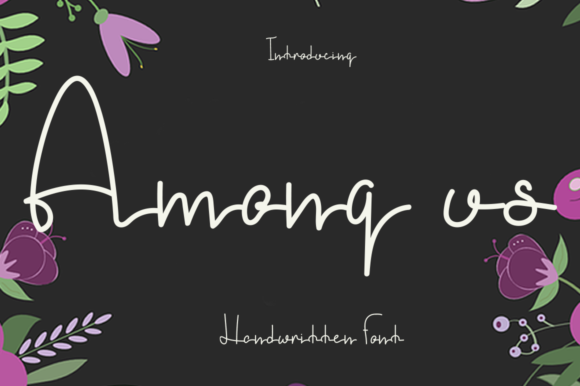
Among Us Font Download: If you’ve spent any time in the world of casual gaming or digital pop culture, you’ve probably come across Among Us—the viral multiplayer game that turned colorful crewmates and sneaky imposters into a global phenomenon. But what many designers and creators also noticed? That quirky, thin, handwritten Among Us font that became instantly recognizable across memes, merchandise, fan art, and game content.
In this guide, we’ll dive into everything you need to know about the Among Us-inspired font—from where to download it, how to use it, what makes it so unique, and how it can elevate your design projects with a playful touch.
What Is the Among Us Font?
The font commonly associated with Among Us is a handwritten, thin, rounded script that gives off a lighthearted and fun vibe. It’s not the official game’s title font (which resembles a cartoonish bold typeface), but a popular fan-inspired handwritten font often referred to as “Among Uss” or simply “Among Us font” across download platforms.
Key Characteristics:
Thin strokes and round edges
Slight slant, like natural handwriting
Soft and friendly appearance
Casual and informal tone
Because of its simplicity and approachability, the Among Us font is often used in designs aimed at kids, gamers, content creators, and fun-loving brands.
Why Designers Love the Among Us Font
Fonts carry personality—and Among Us font brings in a ton of charm without being loud. Here’s why it’s a favorite among creators:
✨ 1. Approachable & Friendly
It has a handwritten feel that instantly feels more personal. Whether you’re designing a thank-you card, a children’s book title, or a YouTube thumbnail, this font gives the impression that a real person is behind the words.
🎨 2. Incredibly Versatile
Despite its game-inspired roots, Among Us font isn’t just for gaming content. It’s great for:
Greeting cards
Kid’s party invitations
Fan art and posters
Social media captions
School projects
T-shirt and sticker designs
🎮 3. Nostalgia for Among Us Fans
Even if your audience isn’t hardcore gamers, chances are they recognize the Among Us aesthetic. This font can serve as a fun visual callback—without needing to show any game graphics at all.
Best Use Cases for Among Us Font
While the Among Us font started as a game-inspired typeface, it’s far more versatile than many expect. Here are some common and creative ways designers are using it:
🔸 1. Fan Art & Game Posters
It’s a natural fit for art inspired by the Among Us universe. Whether you’re illustrating crewmates or designing wallpapers, the font ties everything together.
🔸 2. YouTube & Twitch Thumbnails
Gamers and streamers can use the font to keep branding cohesive with their Among Us content. It’s also perfect for light-hearted commentary channels or reaction videos.
🔸 3. Children’s Party Invitations
The font’s playful nature makes it a hit for kids’ birthday invites, banners, and digital party posts—especially if it’s Among Us-themed!
🔸 4. Social Media Graphics
Want to grab attention in a soft and friendly way? Use the Among Us font for quotes, sale announcements, or reels text overlays.
🔸 5. Merchandise Design
From cute t-shirts and mugs to stickers and notebooks, the Among Us font works beautifully on physical products.
Comic Sans – Love it or hate it, it’s friendly and casual
Patrick Hand – A well-balanced, handwritten Google Font
Caveat – Another free Google font with a casual, handwritten feel
Final Thoughts: Add a Bit of Play to Your Projects
Whether you’re designing for fun, for fans, or for business, the Among Us font adds a cheerful and inviting personality to your text. It’s proof that fonts don’t always have to be serious to make a serious impression. This sweet, handwritten typeface can instantly lighten the tone of your designs, making them more relatable and memorable.